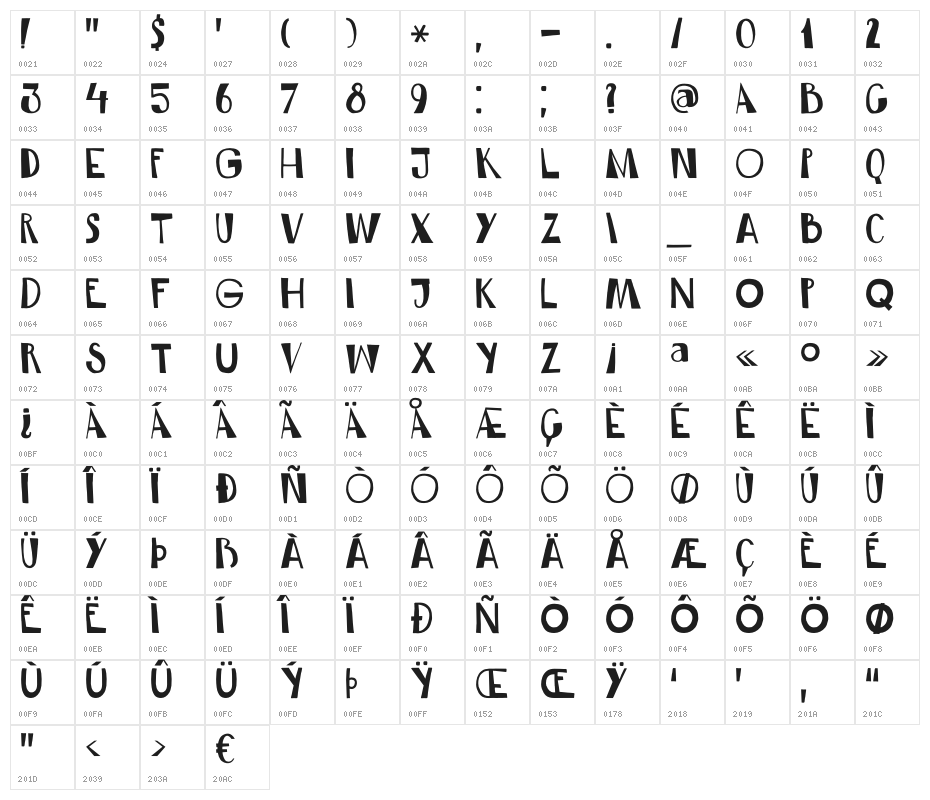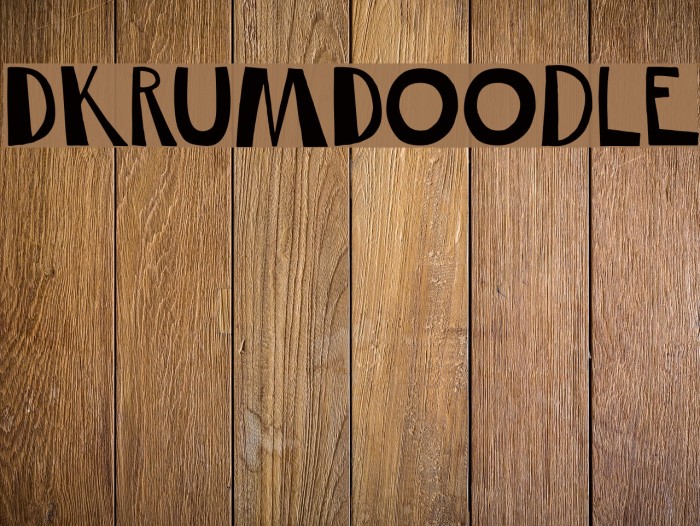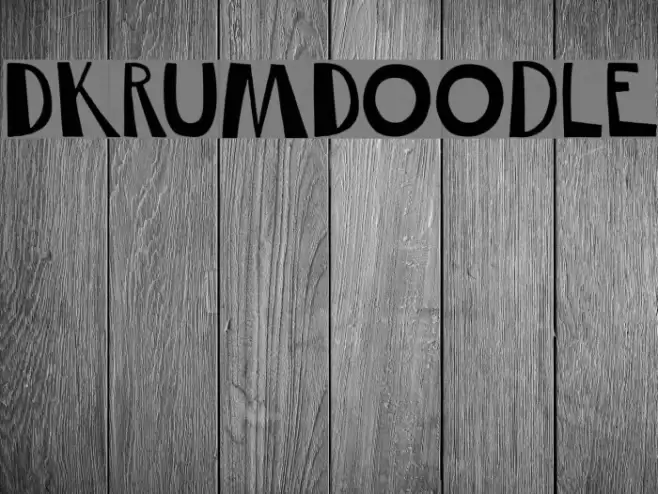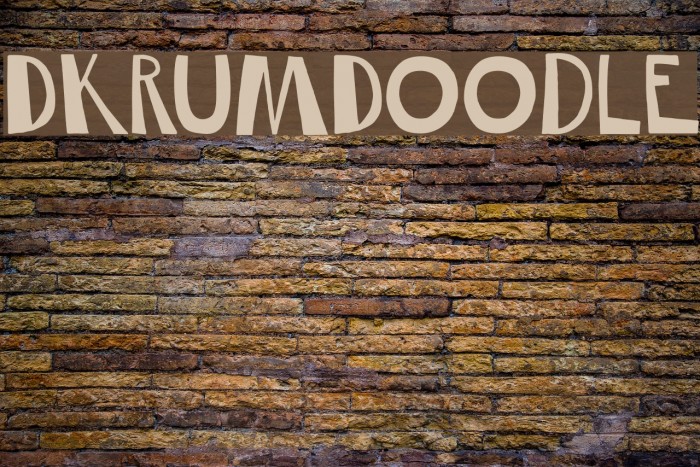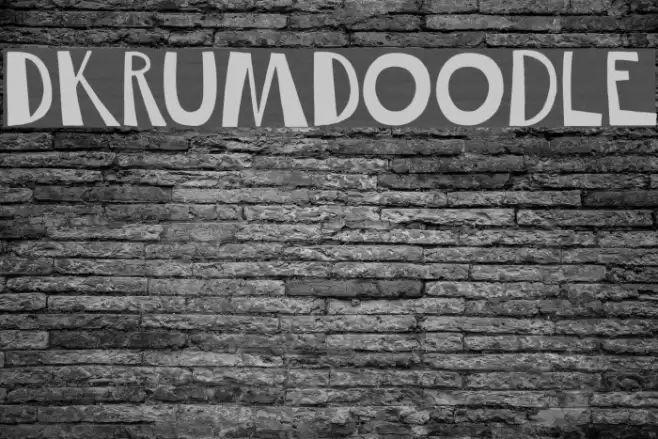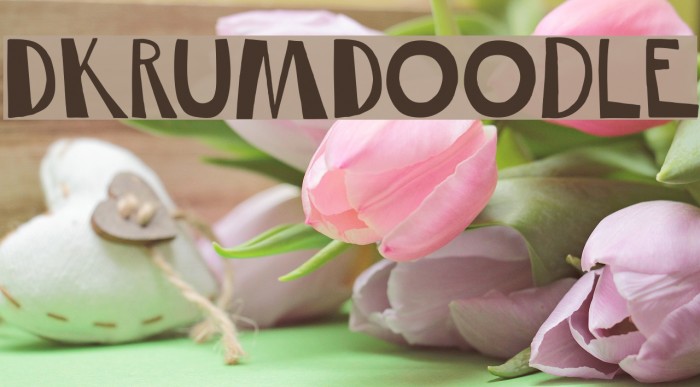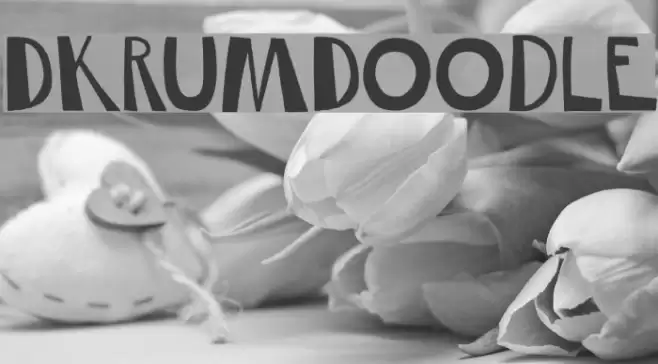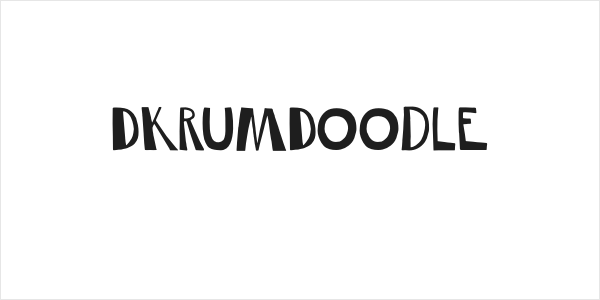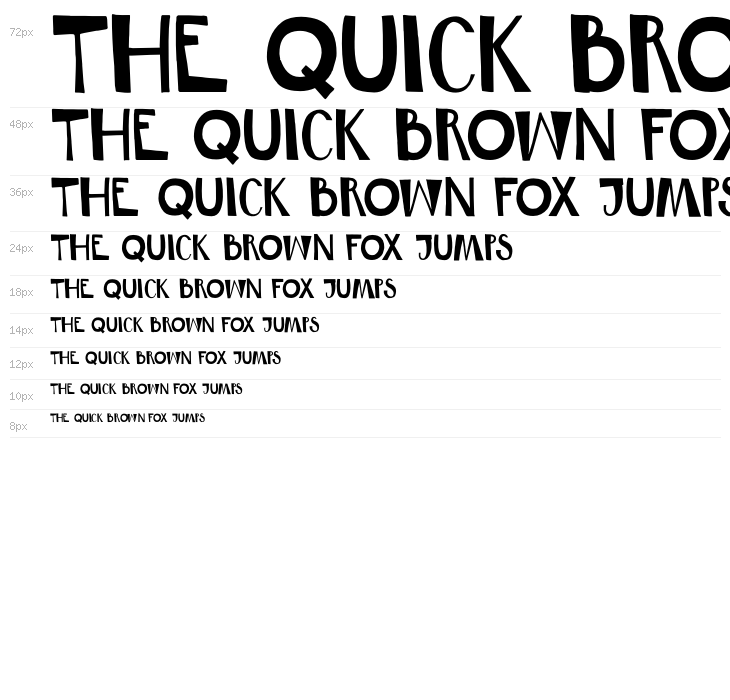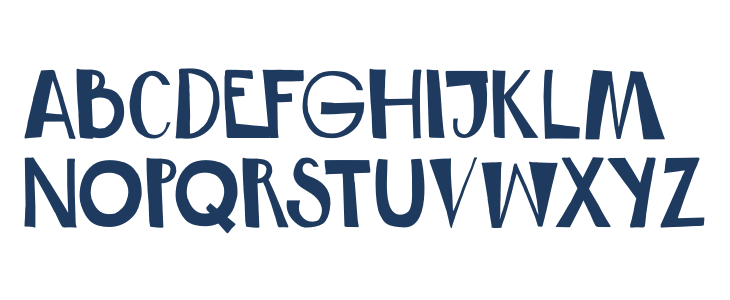
DKRumDoodle Font
DKRumDoodle Description
This font features a playful and whimsical design with exaggerated, uneven strokes that give it a hand-drawn appearance. The characters are bold and irregular, with varying widths and heights that create a dynamic and lively feel. The uppercase letters are particularly distinctive, with some characters leaning or tilting, adding to the font's quirky charm. The numbers and special characters maintain this playful style, making the font suitable for creative and informal projects. Its unique style is eye-catching and can add a fun element to any design.
| Overall Style | Whimsical, Playful |